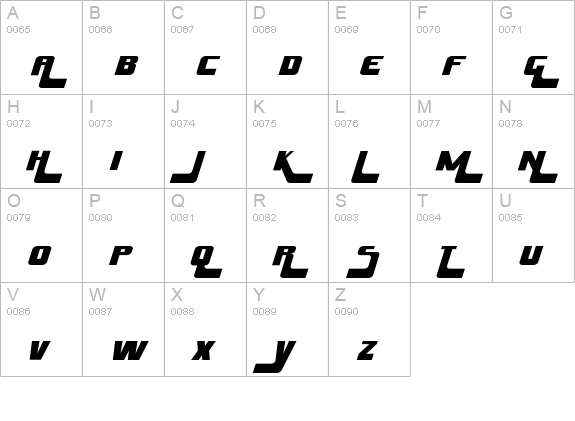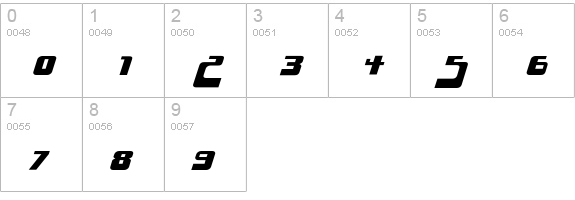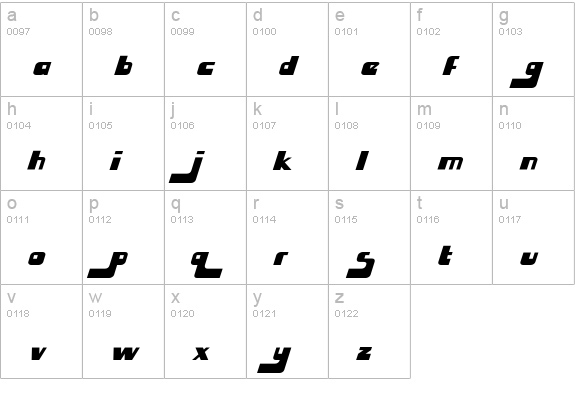
HuskyStash font is a versatile and modern typeface that exudes a sense of strength and elegance. With its clean lines and bold strokes, this font is perfect for a wide range of design projects, from branding to packaging to web design. The unique character of HuskyStash font adds a touch of sophistication to any text, while still maintaining a sense of approachability. Its sleek and stylish appearance makes it ideal for creating eye-catching headlines, logos, and other graphic elements. Best of all, HuskyStash font is available for free download at FontsMarket.com. Whether you're a designer looking to add a fresh new font to your collection or a business owner in need of a standout typeface for your branding, HuskyStash font is the perfect choice. Download it today and elevate your designs with this stunning and versatile font.